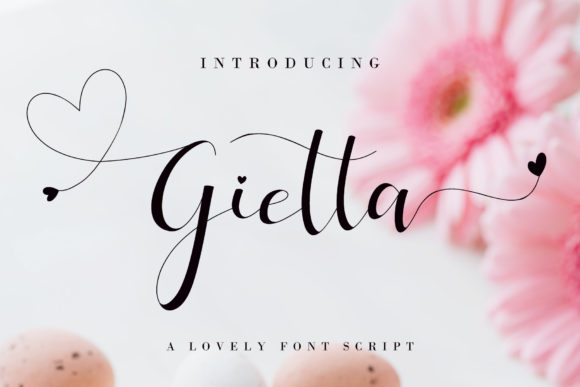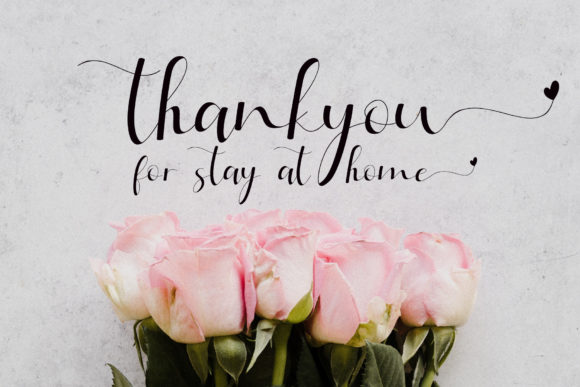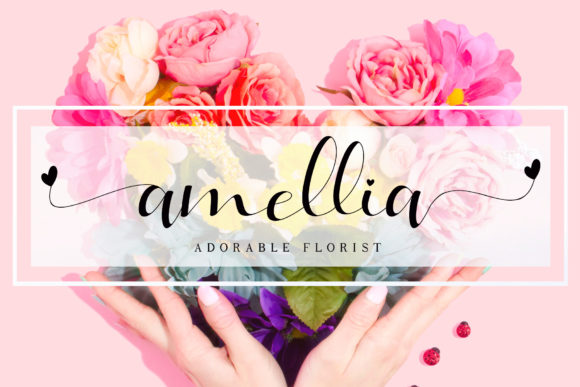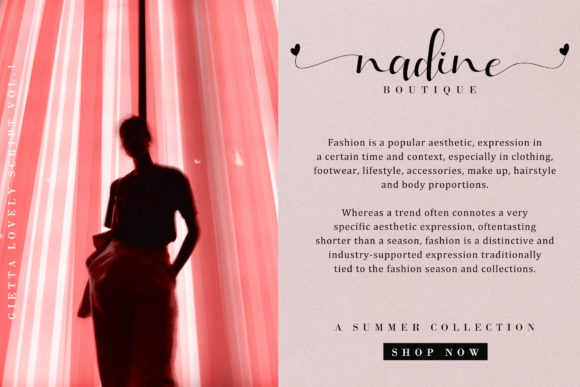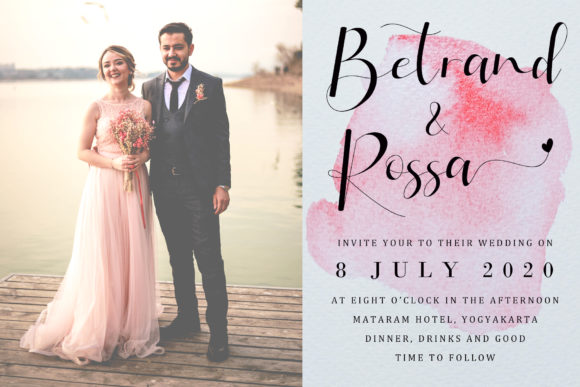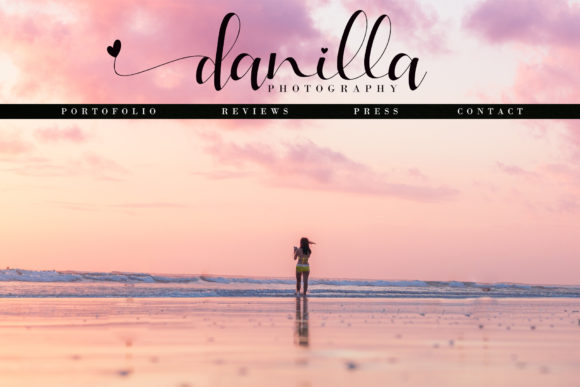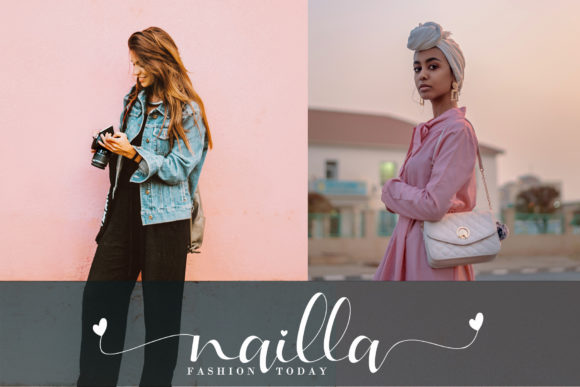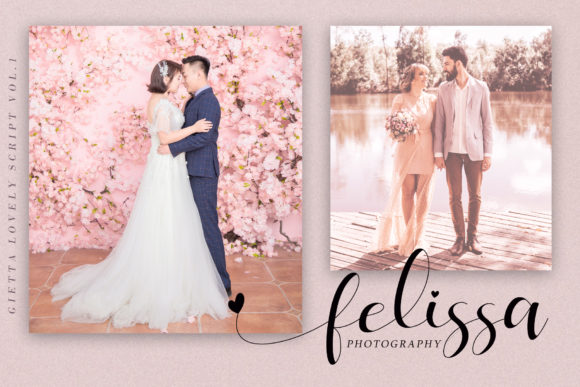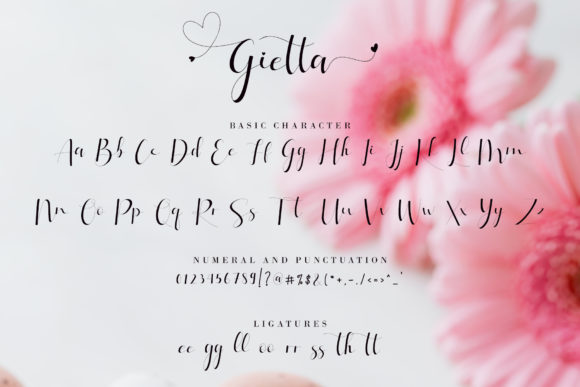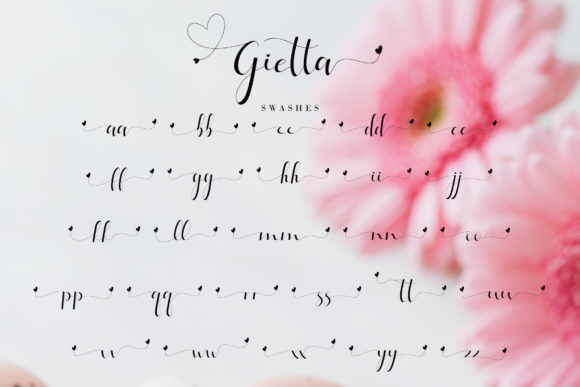
Gietta Font
About Gietta Font
Gietta is a sweet, soft hand-lettered font. Fall in love with its authentic feel and use it to create gorgeous wedding invitations, beautiful stationary art, eye-catching social media posts, and sweet logos.